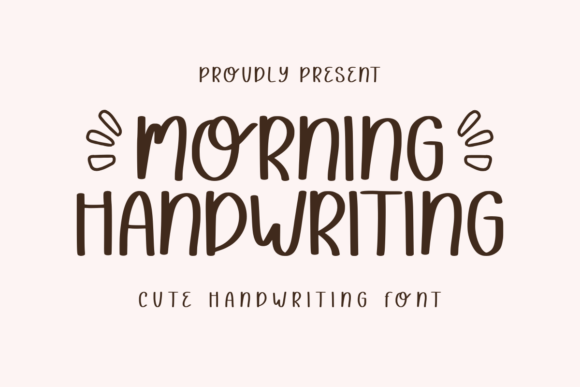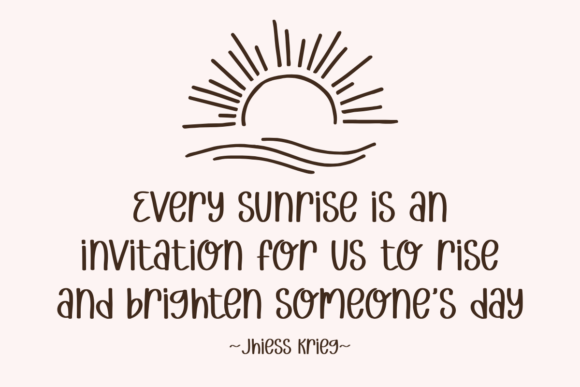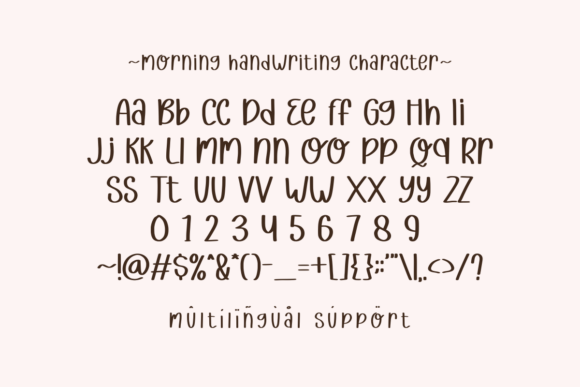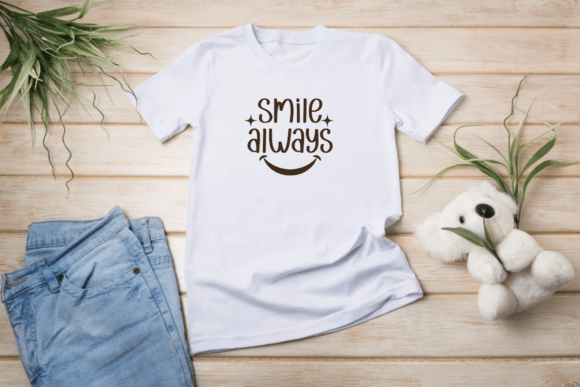
Morning Handwriting Font
About the Morning Handwriting Font
We are excited to introduce Morning Handwriting Font, a must-have typeface for any serious designer. Morning Handwriting is a charming handwriting font with a clean yet whimsical vibe. Featuring smooth curves and a hand-drawn feel, this font is perfect for romantic designs, wedding invitations, heartfelt branding, and elegant social media graphics. Its versatile style pairs a modern aesthetic with a touch of playful warmth, making it ideal for creative and love-inspired projects.
Morning Handwriting excels in applications requiring a touch of personal warmth and charm. It’s highly effective for short-form text such as headlines, logos, and social media posts. Its whimsical nature also makes it suitable for packaging design, particularly for products targeting a younger, creative demographic or those emphasizing handmade qualities. However, it’s less ideal for body copy or lengthy text due to its less-than-optimal readability at smaller sizes.
To maximize its visual impact, pair Morning Handwriting with a clean sans-serif font like Lato or Open Sans for body text, creating a balanced contrast between the handwritten informality and a crisp, legible foundation. For a more playful feel, consider pairing it with a geometric sans-serif like Montserrat. Alternatively, a delicate serif like Playfair Display can add a touch of classic elegance.
The overall personality of Morning Handwriting is friendly, approachable, and subtly playful, making it an excellent choice for brands that wish to project a sense of warmth and creativity without sacrificing legibility in key areas.